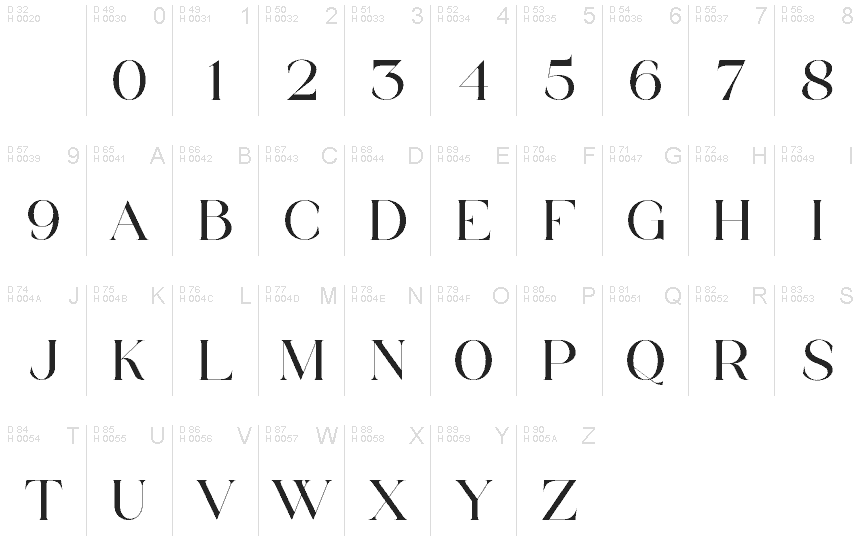
Volgarie Regular
Volgarie font by Achmad Yani of Flawless and Co. is a sophisticated free classic serif font that carries a modern aesthetic and high-end appeal. The typeface exudes an elegant luxurious feel, with the perfect addition of keywords to take note of: elegant, sophisticated, classic serif, modern aesthetic, high-end appeal, luxurious feel.
Use Volgarie for wedding invitation designs reminiscent of fairy tales or ensure that typography used in packaging is as innovative as the luxurious products within. Decorate posters and wall art pieces or design inspiring greeting cards both digitally and printed so they can reach an audience on every platform possible.